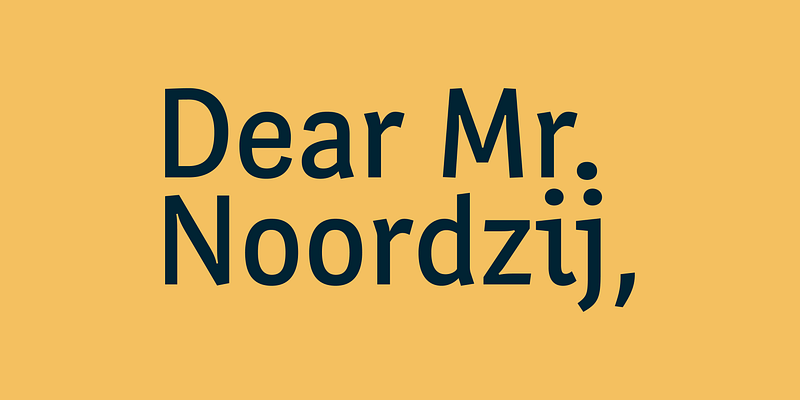
Interpol Correspondence Font Free Download is a professional and highly legible sans-serif typeface designed specifically for official documents, corporate communication, and multilingual correspondence. With its clean lines, open counters, and functional design, this font is perfect for reports, forms, government materials, and any document requiring a neutral, formal tone.
The typeface is optimized for clarity, ensuring excellent readability even at small sizes or in dense text layouts. Interpol Correspondence Font Free Download supports a wide range of characters and diacritics, making it ideal for international use across various languages and systems.
Its restrained, no-nonsense style communicates authority and precision, making it well-suited for administrative or institutional branding. It pairs effortlessly with serif fonts in formal publications or can be used on its own to maintain a streamlined, uniform look.